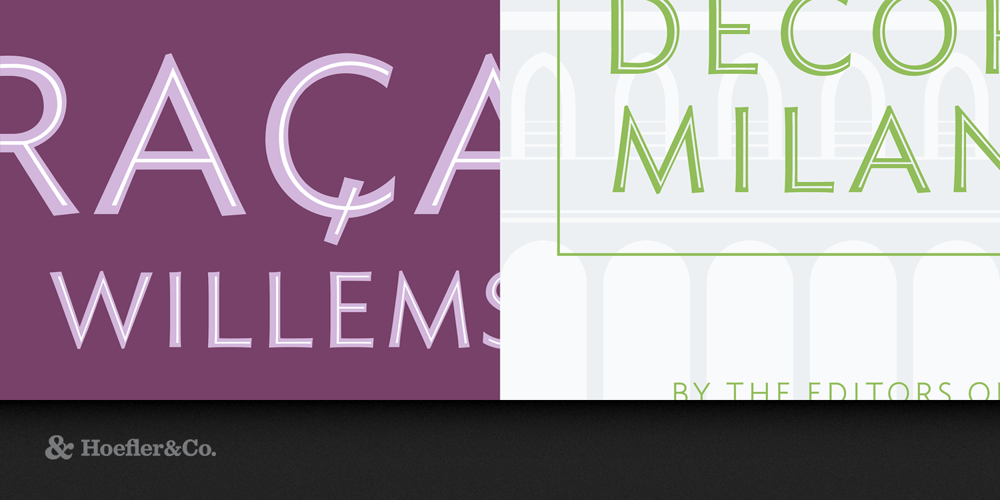
Topaz Font Family was designed by Jonathan Hoefler and published by Hoefler & Co.. Topaz contains 3 styles and family package options. Part of the Shades collection of two-color fonts, Topaz is an inline face that’s both suave and resolute. The Topaz typeface was designed by Jonathan Hoefler in 1997. A decorative variation of Hoefler’s Ideal Sans typeface (1991), Topaz is an inline typeface that unusually dislocates its white and black contours, to create an energetic rhythm of thin and thick strokes. A ‘chromatic’ typeface, Topaz includes the two styles Background and Inline, designed to be set in different colors and superimposed in register. From the desk of the designer: “Inlines” are black typefaces with white highlights, and “Outlines” are white typefaces with black borders. The typographic scholar R. S. Hutchings noted that “it is often difficult, if not actually impossible, to distinguish between them.” Topaz is our attempt to further blur the distinction: its sinuous curves and careful asymmetries, together with its off-center highlights, yield a typeface which is simultaneously an inline, and outline, and a dimensional letter.